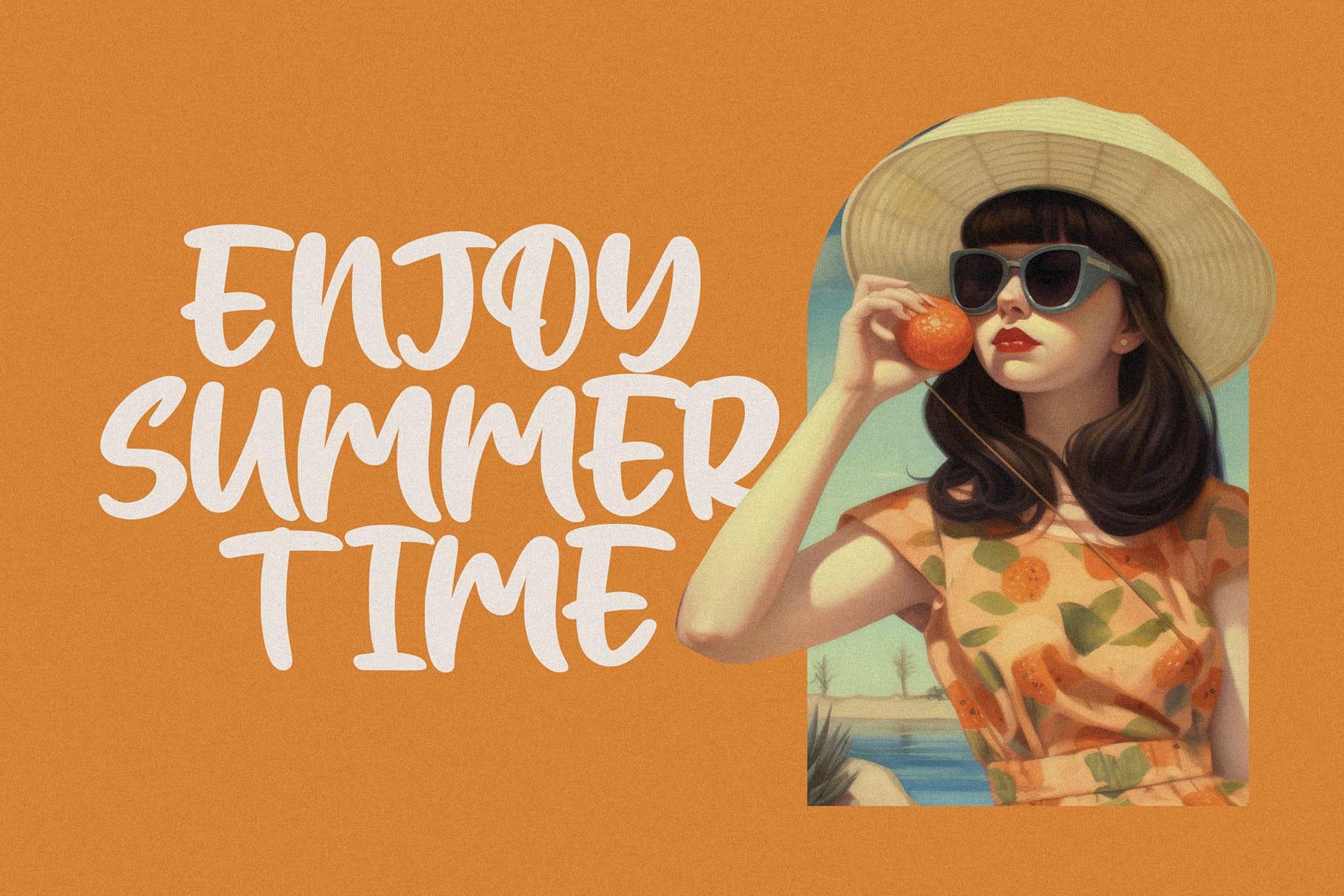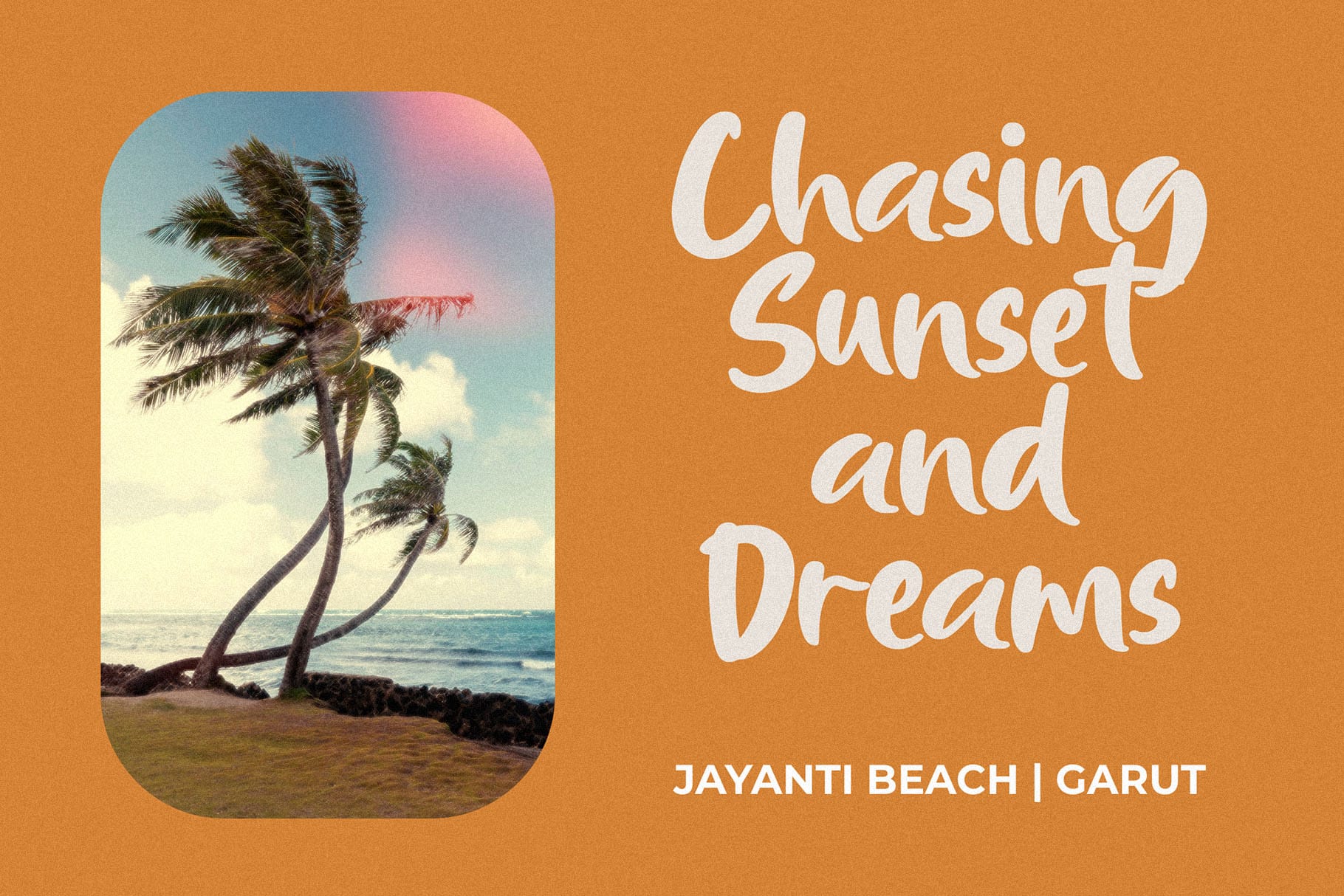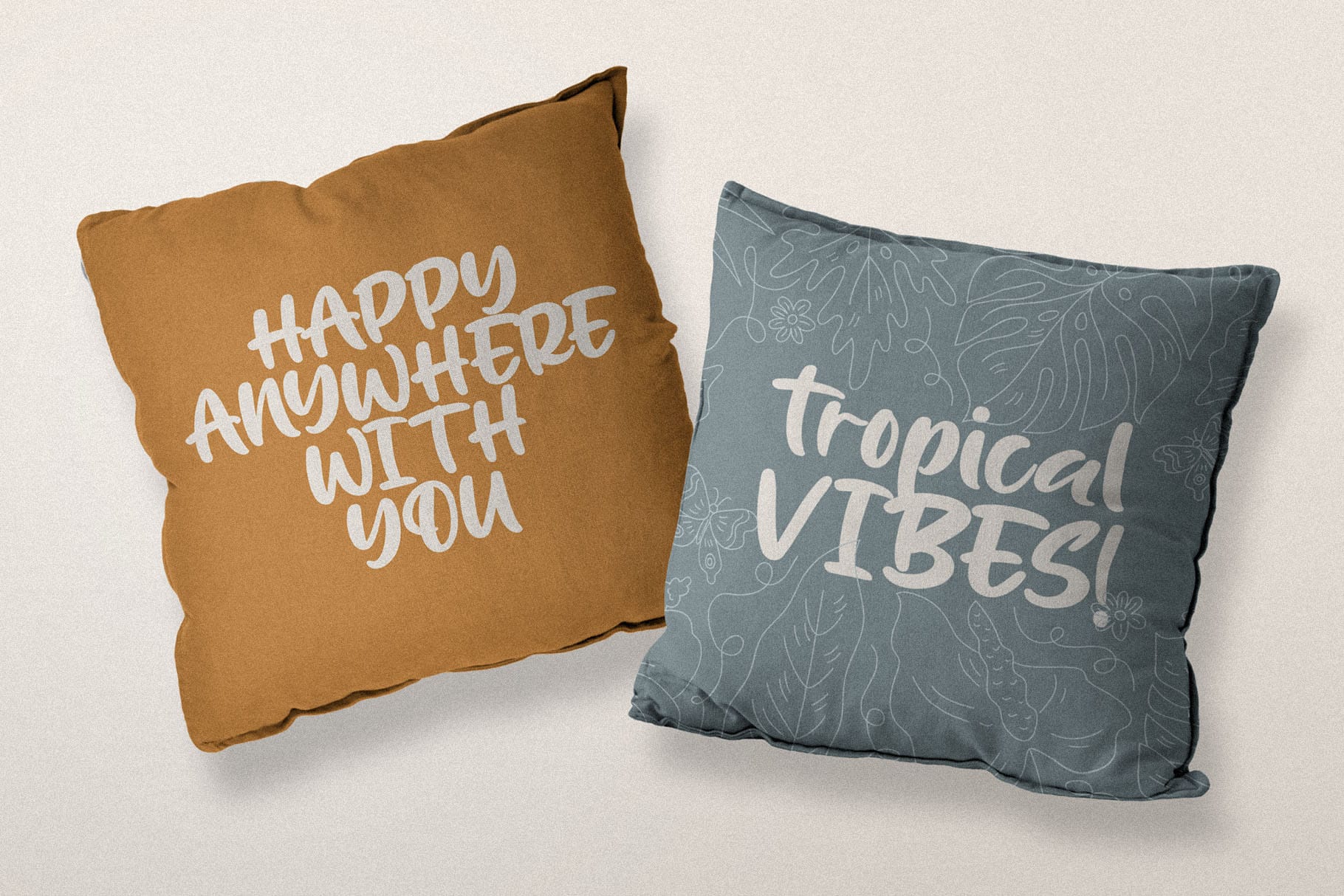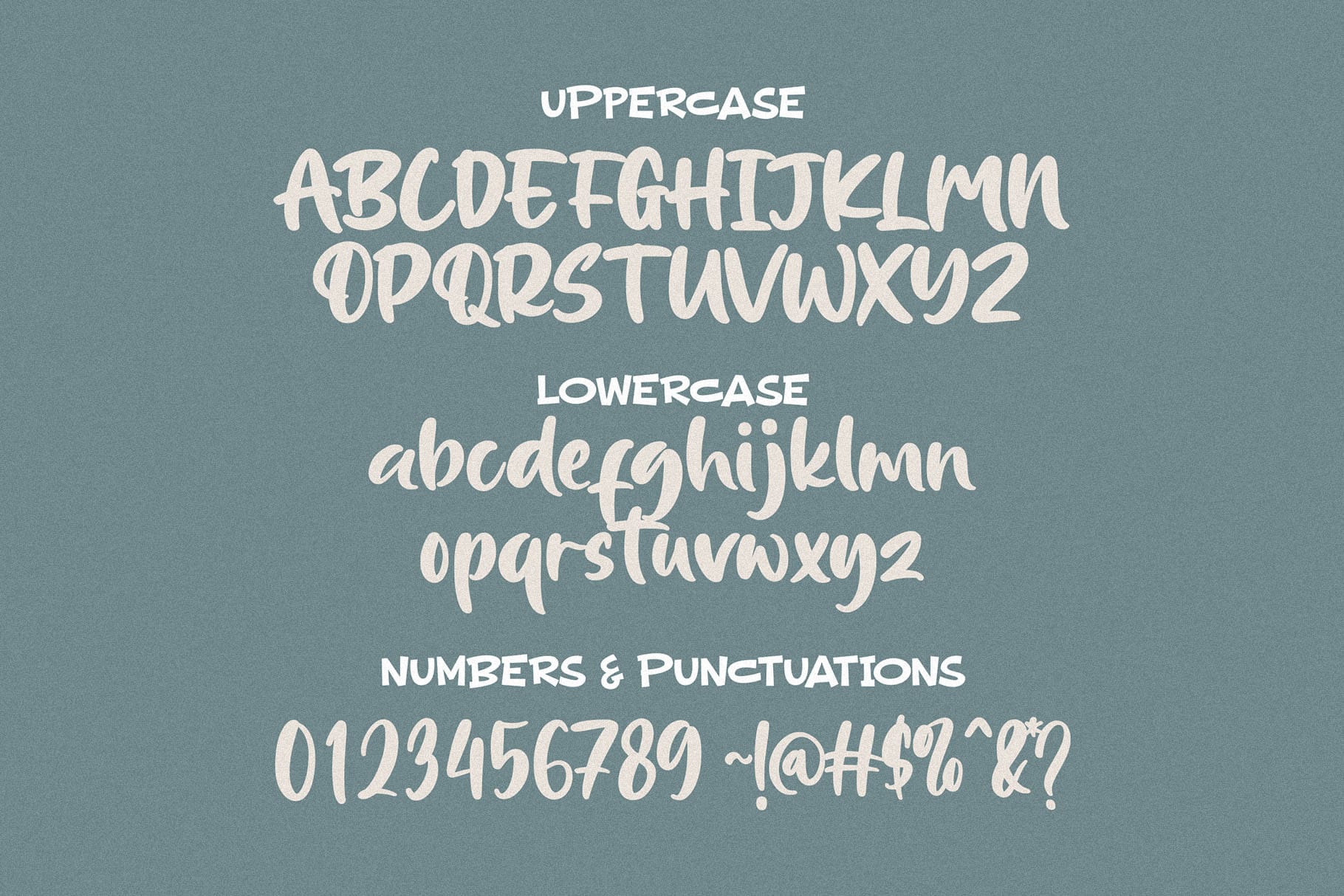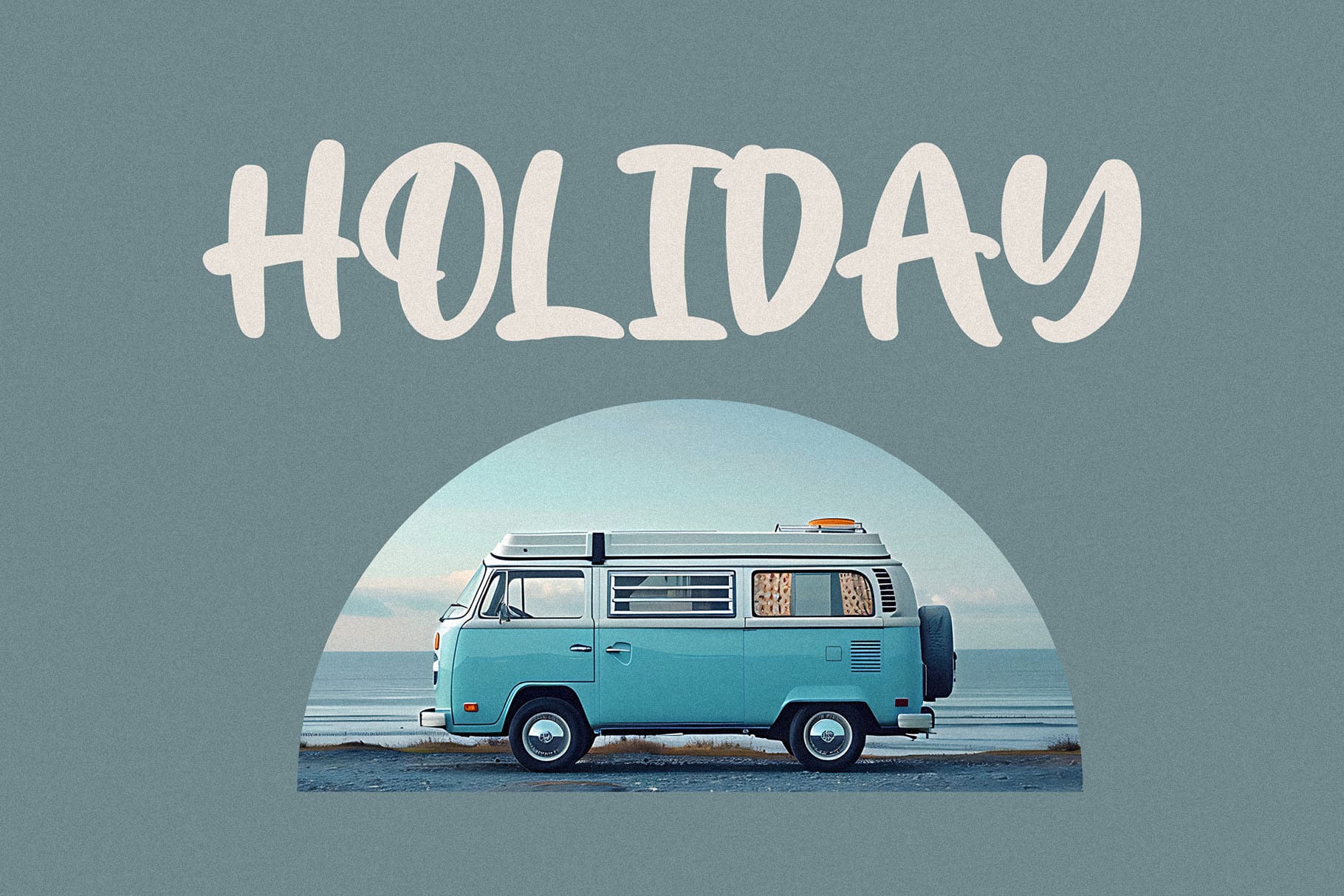
Moris Palm
Introducing Moris Palm – the Handwritten Summer Font that infuses your designs with the warm, carefree spirit of summer. Perfect for projects that need a relaxed and inviting touch, Moris Palm combines a playful handwritten style with a breezy, sun-soaked vibe to create a font that is both charming and refreshing.
🌞 Summer Vibes: Moris Palm brings the essence of summer to your designs. Its casual, handwritten letterforms evoke the feeling of sun-kissed days and relaxed beachside moments, making it ideal for any project that needs a lighthearted and cheerful look.
🌴 Playful and Inviting: With its warm and welcoming design, Moris Palm captures attention. The font’s easy-going and organic style ensures your text stands out, making it perfect for headlines, posters, and branding that require a friendly and approachable statement.
🌺 Handwritten Charm: Whether you’re designing for travel, lifestyle, or seasonal events, Moris Palm adapts effortlessly. Its handwritten style makes it suitable for a wide range of applications, adding a unique and authentic touch to your work.
🍉 Refreshing Visual Appeal: Moris Palm’s breezy and playful look captures the essence of handwritten summer fun. The font’s distinctive character ensures your message is conveyed with warmth and positivity, leaving a lasting impression on your audience.
🏖️ Versatile for Various Projects: From greeting cards and social media posts to event invitations and product packaging, Moris Palm excels in any context. Its summer-inspired aesthetic enhances your designs, making them resonate with the joy and relaxation of the season.
Embrace the spirit of summer with Moris Palm – the Handwritten Summer Font that brightens your designs. Perfect for adding a relaxed and joyful touch to any project, Moris Palm is your go-to font for creating inviting and captivating text that truly stands out.